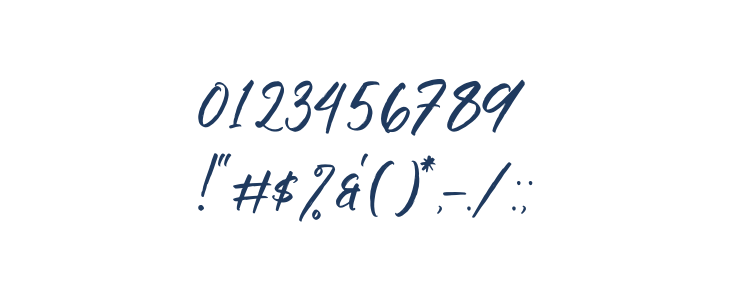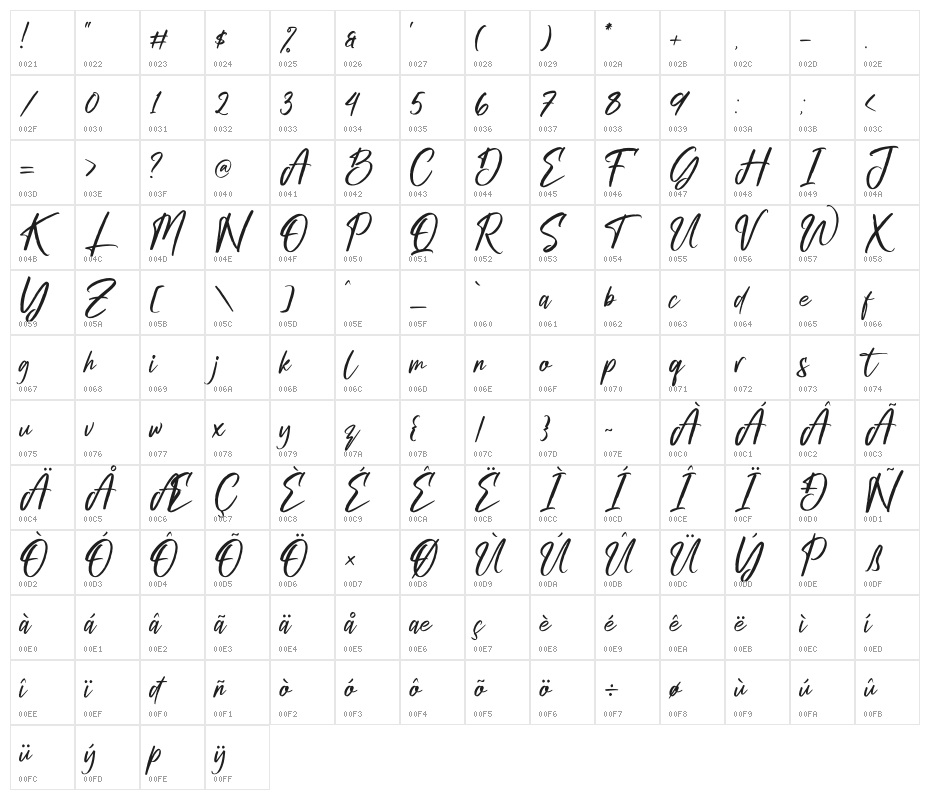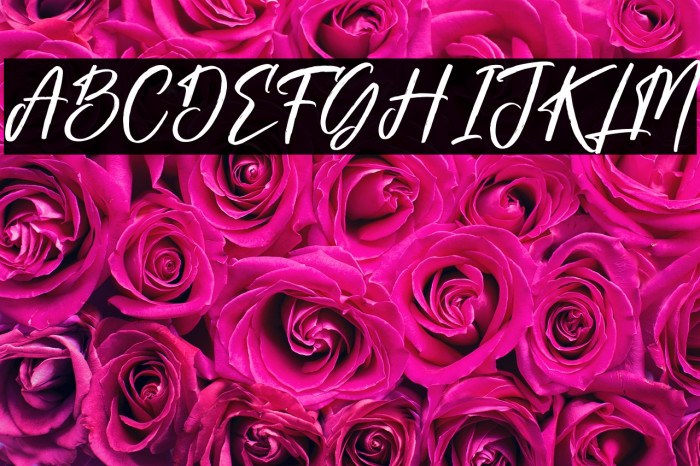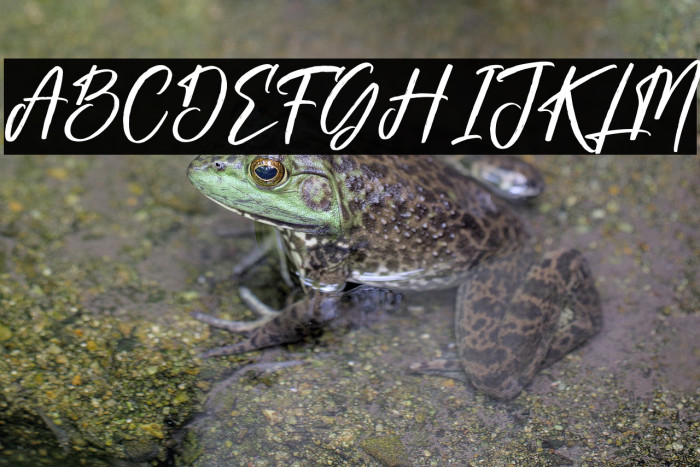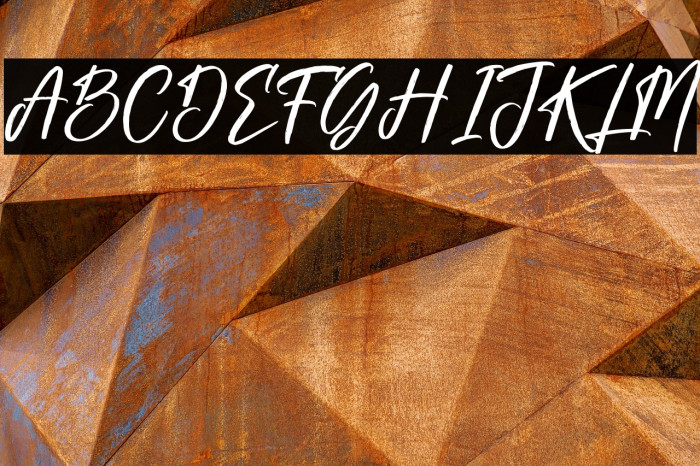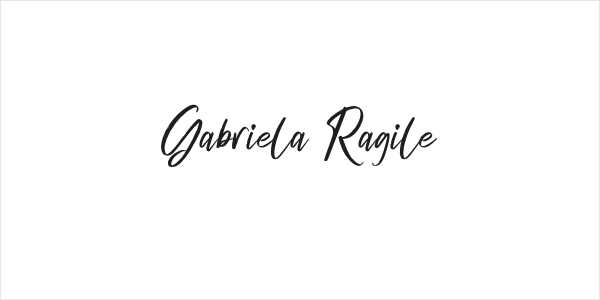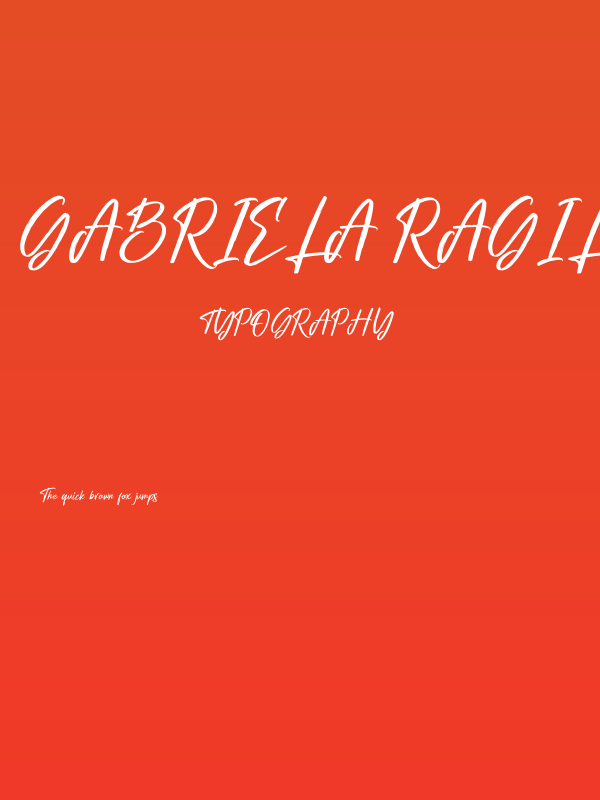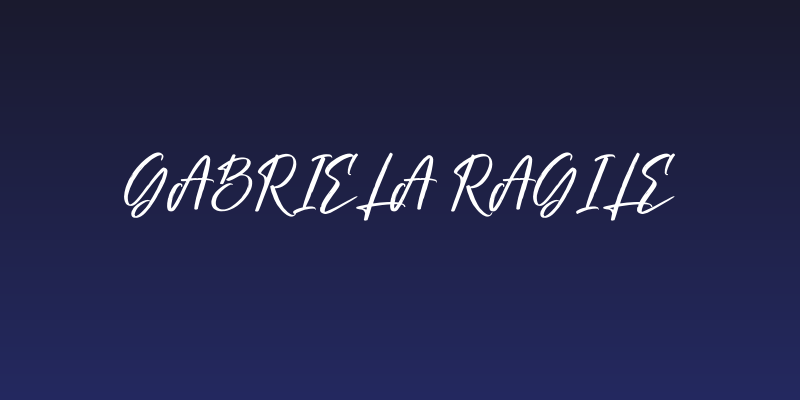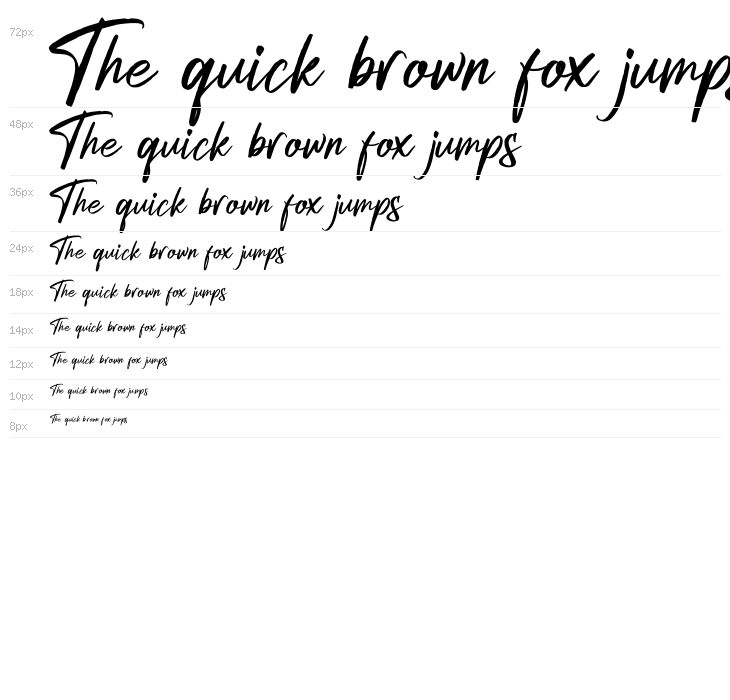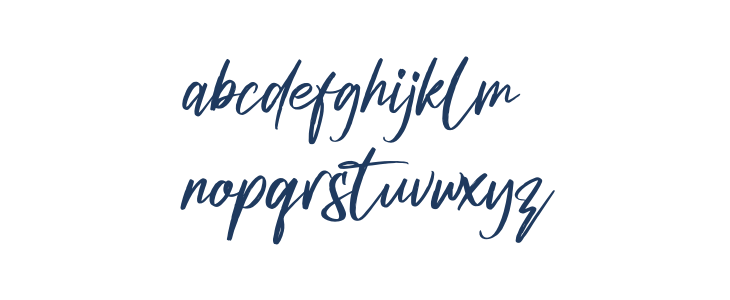
Gabriela Ragile Font
Gabriela Ragile Description
This font features a dynamic and expressive handwritten style, characterized by fluid strokes and a natural flow. The uppercase letters are bold and slightly slanted, giving a sense of movement and energy. The lowercase letters maintain a consistent style, with some characters extending below the baseline, adding to the font's lively appearance. Numbers and special characters are crafted with the same attention to detail, ensuring a cohesive look across all elements. The overall design is both elegant and casual, making it versatile for various creative projects.